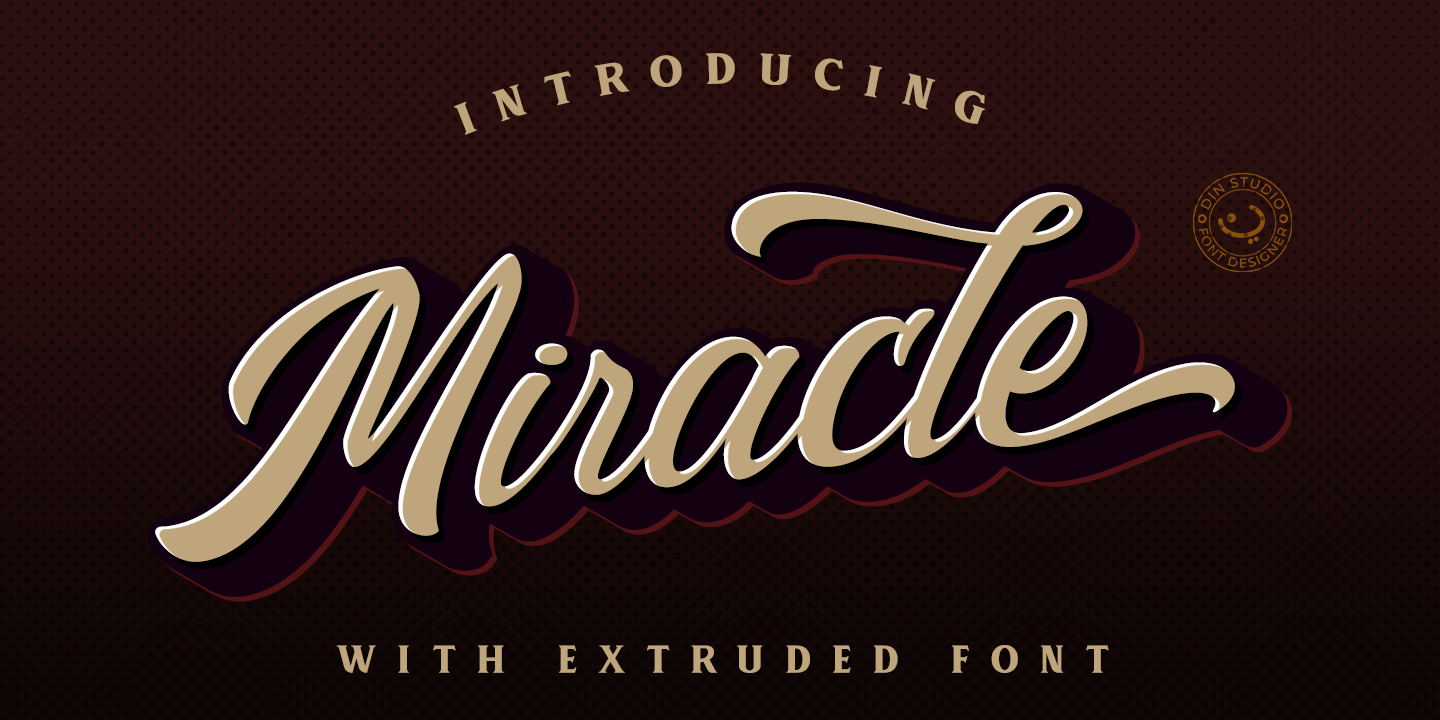
Miracle Script Font is perfect for inspiring religious communications, uplifting spiritual branding, divine wedding invitations, heavenly greeting cards, sacred ceremony materials, faithful ministry designs, blessed event promotions, and miraculous testimonial layouts.
What makes Miracle Script Font exciting is its divine inspiration and heavenly grace that channels the sacred beauty of miraculous moments and spiritual awakening. This transcendent typeface combines flowing script elegance with divine sophistication, creating letters that seem to be blessed with heavenly touch and radiate spiritual warmth. The font's miraculous character details and sacred aesthetic make it an ideal choice for brands seeking to communicate faith, hope, and divine connection to their audiences.
Miracle Script Font family includes Regular, Bold, Light, Divine, Sacred, and Blessed variations, plus spiritual ornaments and heavenly flourishes. Each style maintains the font's miraculous character while providing comprehensive flexibility for creating inspiring design systems and spiritual brand communications that celebrate faith, hope, and divine blessing.
Spiritual design specialists consistently choose Miracle Script Font Free Download for projects requiring divine sophistication and miraculous visual impact. This remarkable typeface has gained recognition among religious organizations, spiritual brands, and faith-based communities worldwide. The font's ability to convey hope and divine inspiration makes it perfect for brands operating in religious, spiritual, and inspirational markets.
The design philosophy behind Miracle Script Font emphasizes divine grace and miraculous beauty. Its letterforms feature flowing curves and carefully balanced proportions that reflect the sacred harmony and heavenly elegance found in spiritual experiences and divine encounters. The font's distinctive elements include blessed flourishes and miraculous character variations that create immediate spiritual connection with audiences seeking faith and divine inspiration.
Creative agencies specializing in religious and spiritual branding frequently select Miracle Script Font for clients requiring divine communication and inspirational brand expression. The font's versatility allows seamless integration into comprehensive spiritual branding systems, from religious campaigns to faith-based product launches, ensuring consistent brand personality across all sacred and miraculous touchpoints.
The technical execution of Miracle Script Font demonstrates meticulous attention to spiritual typography requirements and religious design standards. Advanced OpenType features include contextual alternates and blessed ligatures that enhance creative possibilities for divine designs. The font's comprehensive character set and spiritual ornament library make it suitable for international religious campaigns requiring authentic miraculous typography with global spiritual appeal.